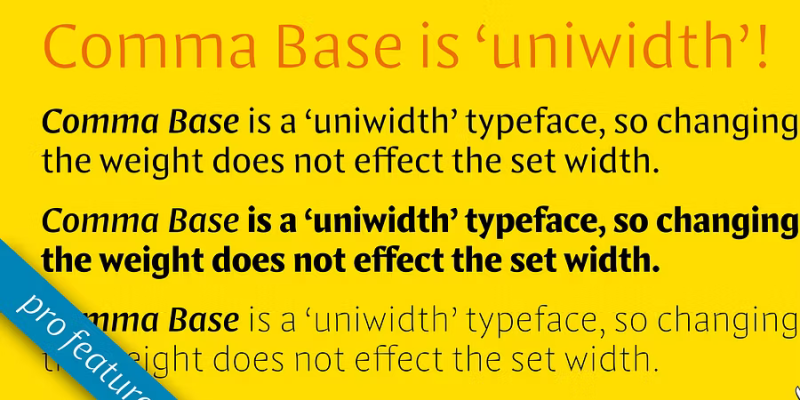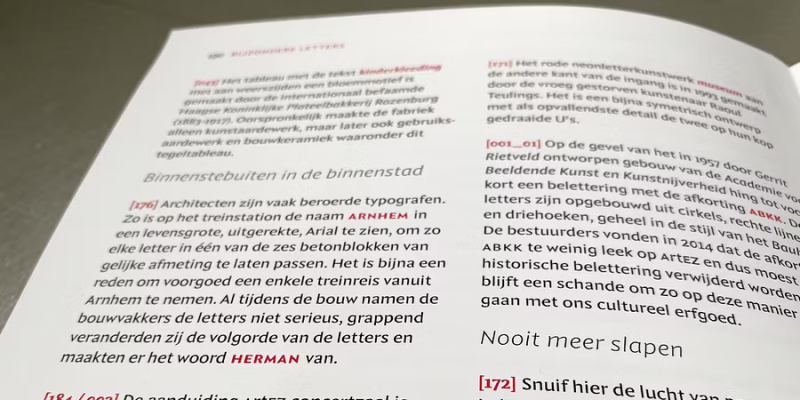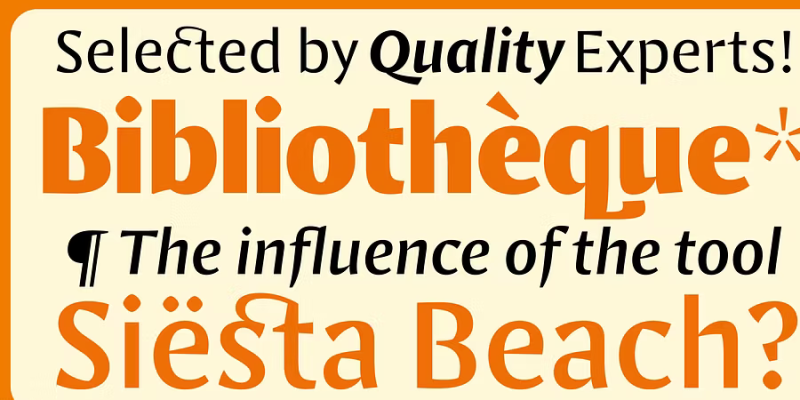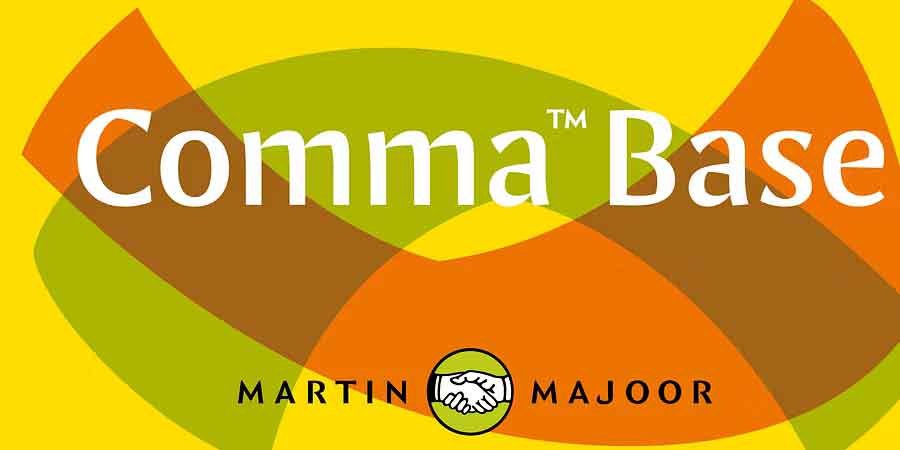
Comma Base Font Family
Comma Base is a sans typeface for it has no serifs. No wait, it is a typical serif typeface because it has a high contrast. Strictly speaking, Comma Base is a missing link between serif and sans, offering the best of both worlds.
Comma Base supports several OpenType features for advanced typographic control. It consists of 16 styles, 8 weights from Hairline to Ultra, in both roman and italic.
Comma Base is a uniwidth font. This means changing a text from normal to bold doesn’t effect the set width, a professional feature that is highly appreciated by graphic designers.
Comma Base Font Family is a Sans Serif Fonts font that brings a professional and versatile look to your projects. Comma Base is a sans typeface for it has no serifs.